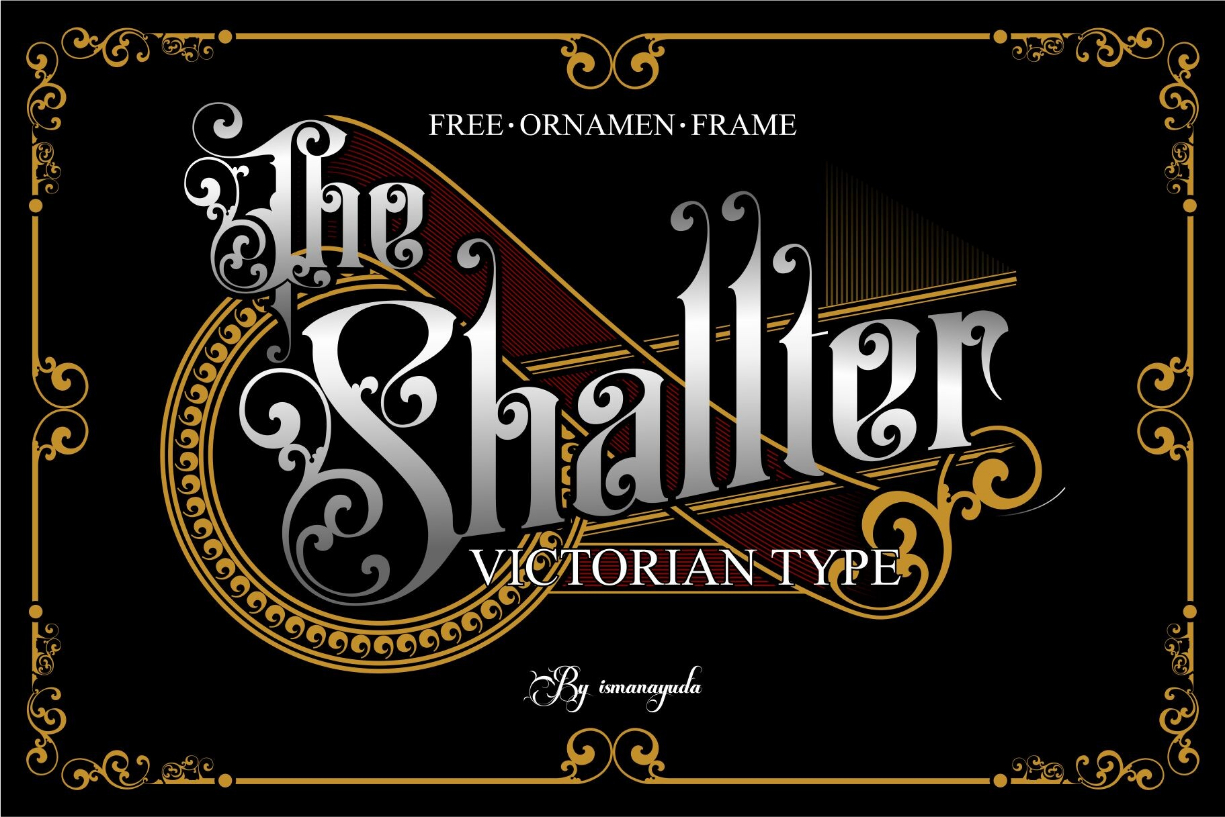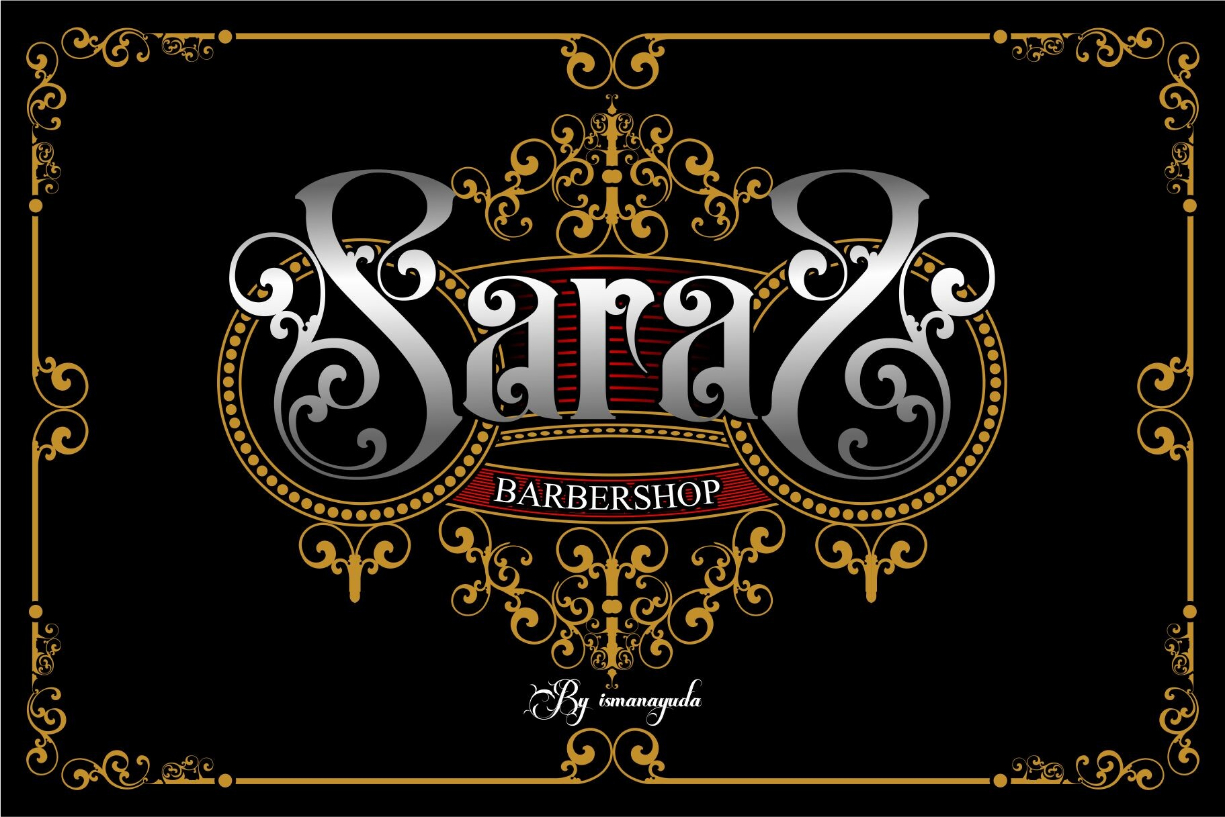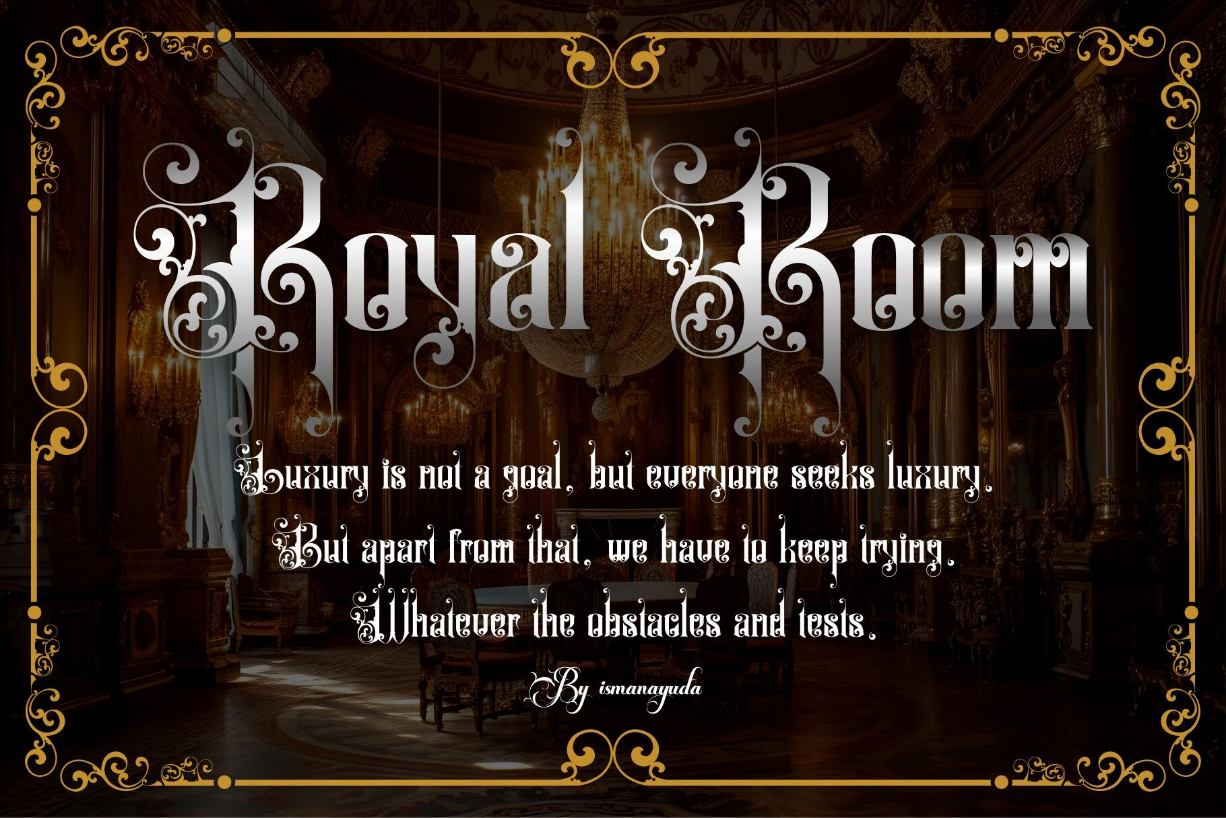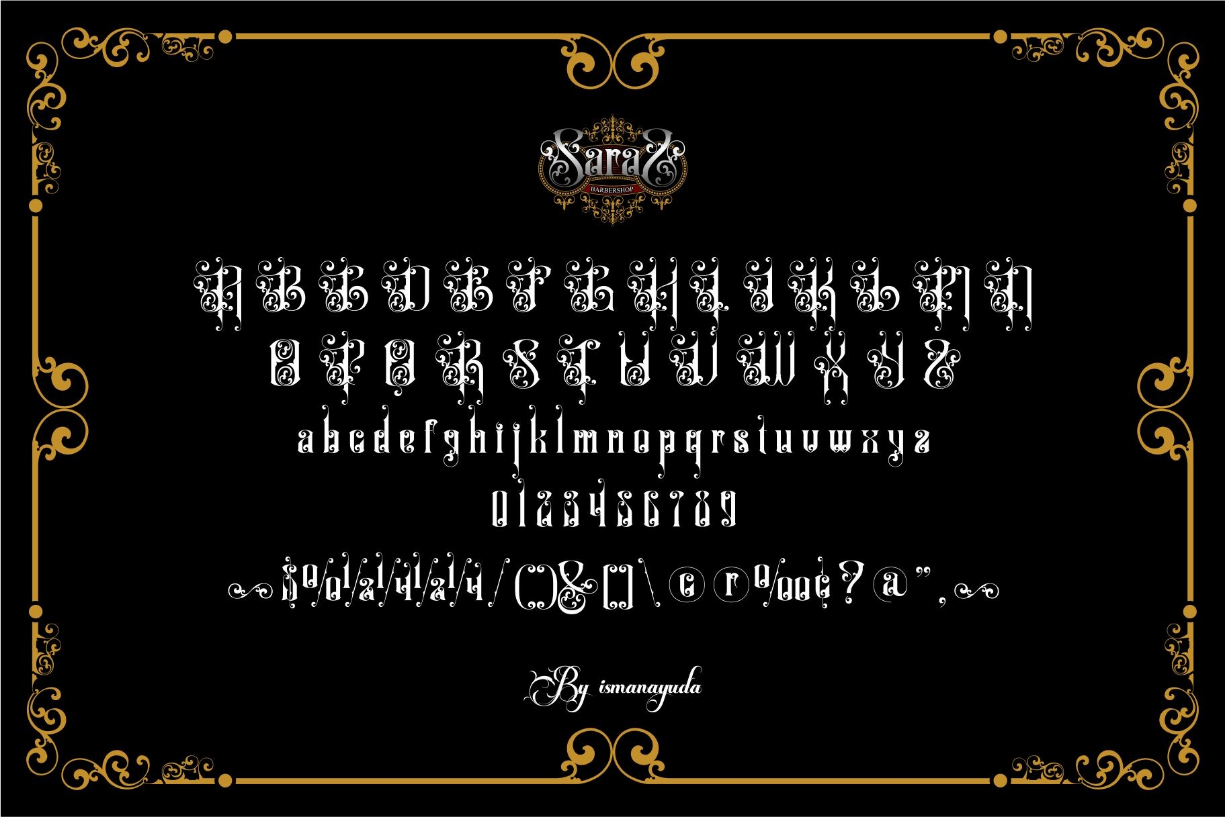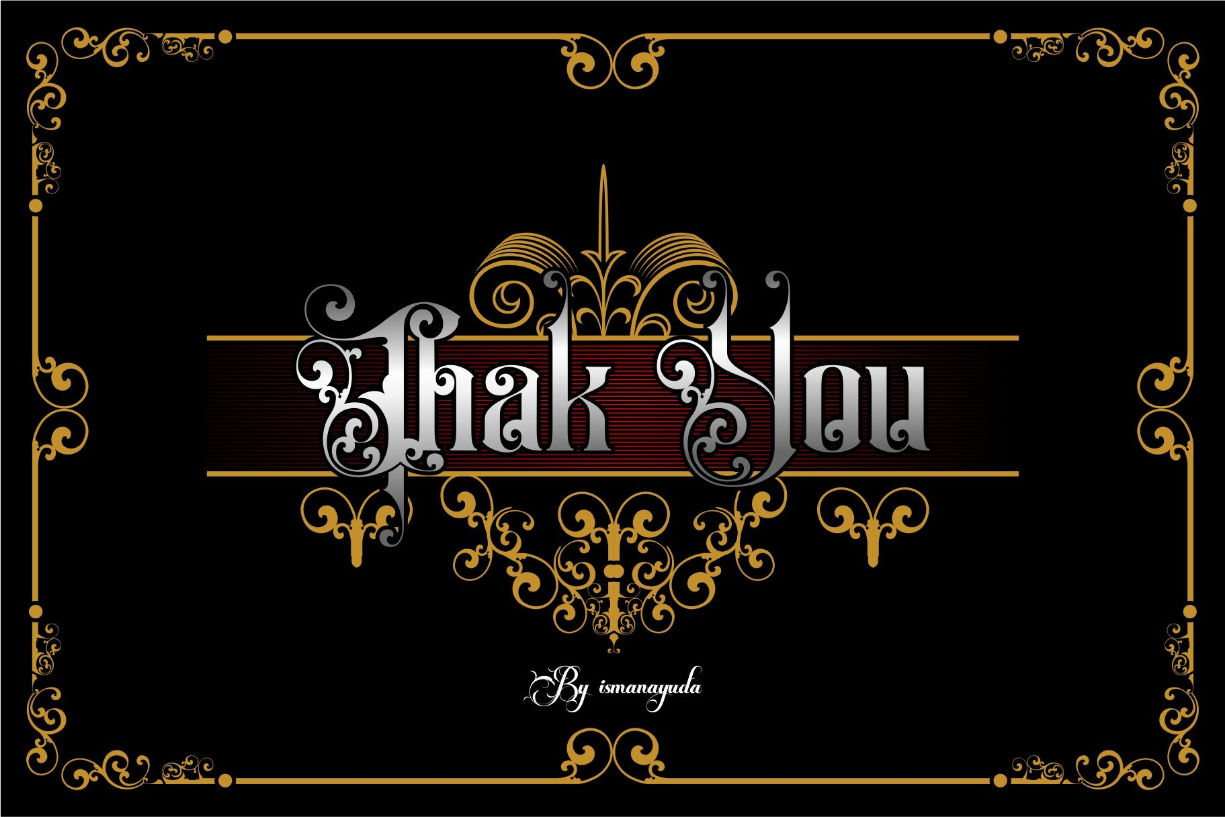
The Shallter Font
About The Shallter Font
The Shallter is a Victorian royale-style font
The use is none other than for studio tattoos, logo bands, cafe mock-ups, coffee shops, and so on.